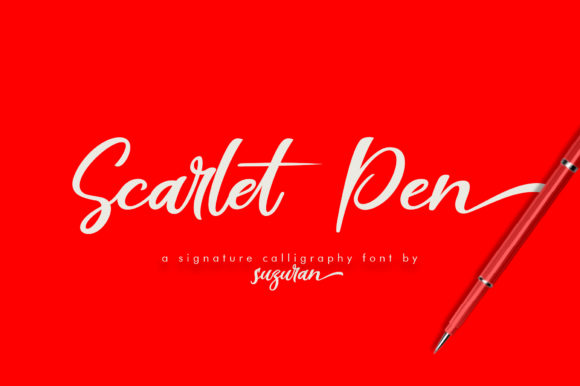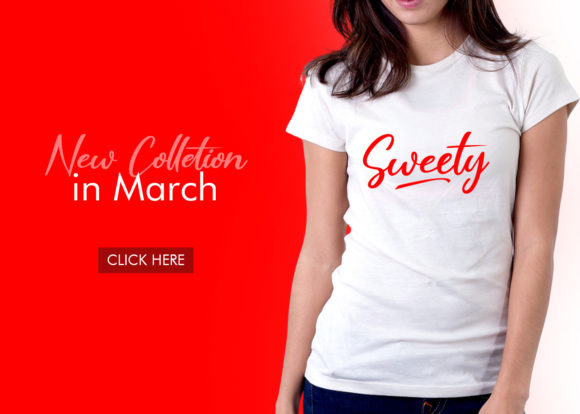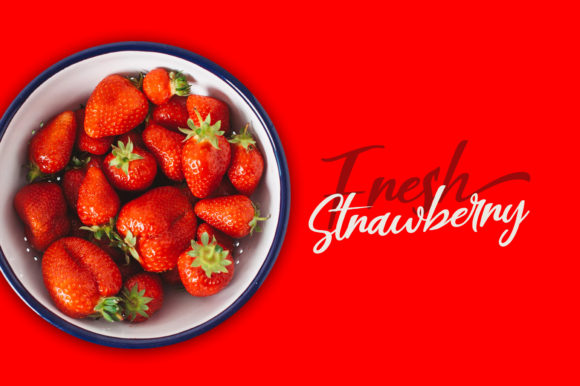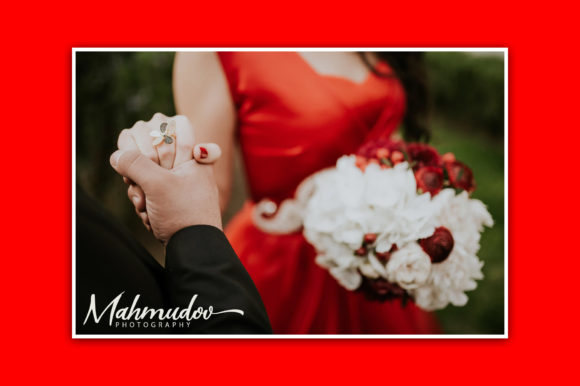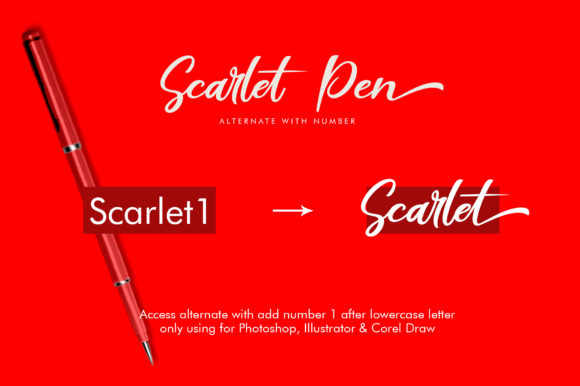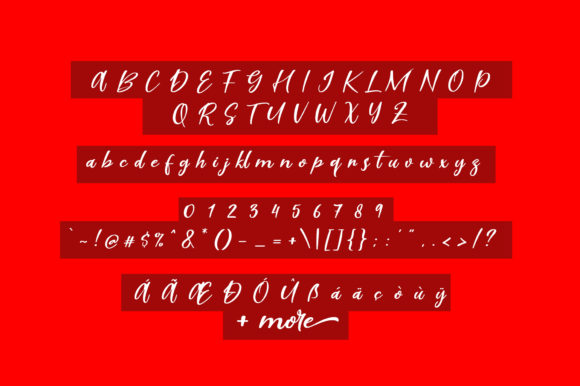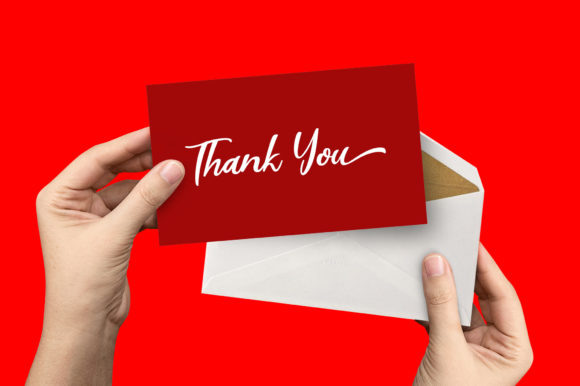
Scarlet Pen Font
About Scarlet Pen Font
Scarlet Pen is a fresh and unique script font with an authentic charm. Get inspired by its lovely feel, and turn any creative project into a stunner.